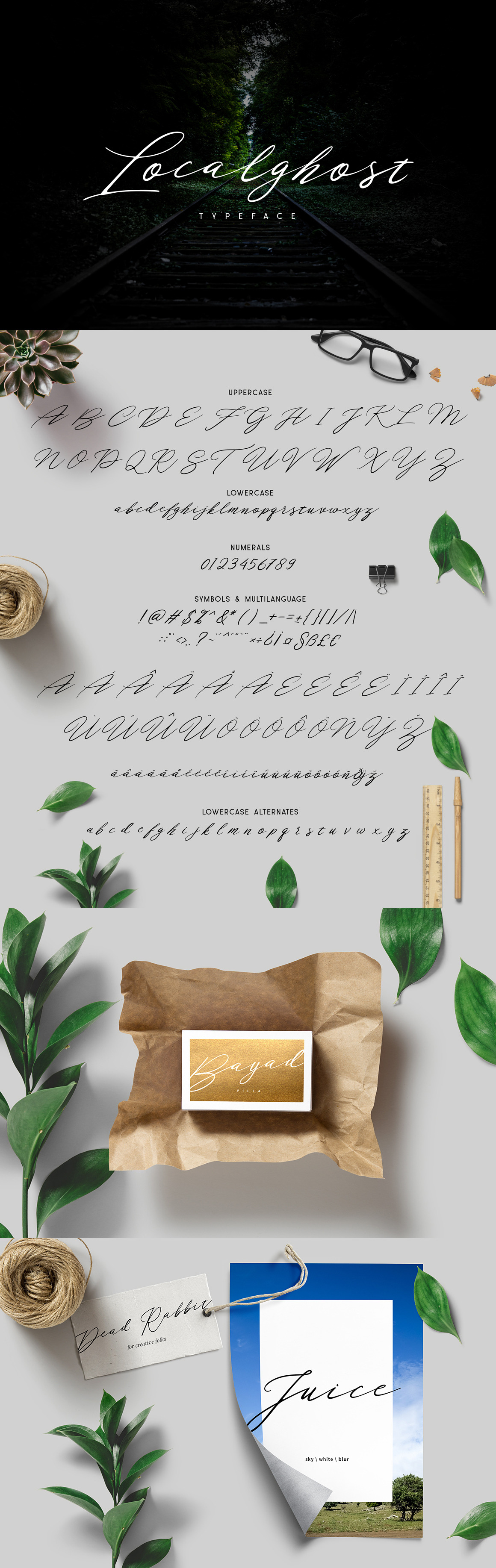
Localghost Typeface
introducing Localghost typeface , using style signature lettering script. Localghost typeface a beautiful for logotype, website header, fashion design, header magazine, header mail and any more.
- Character Set A-Z
- Contextual Alternates